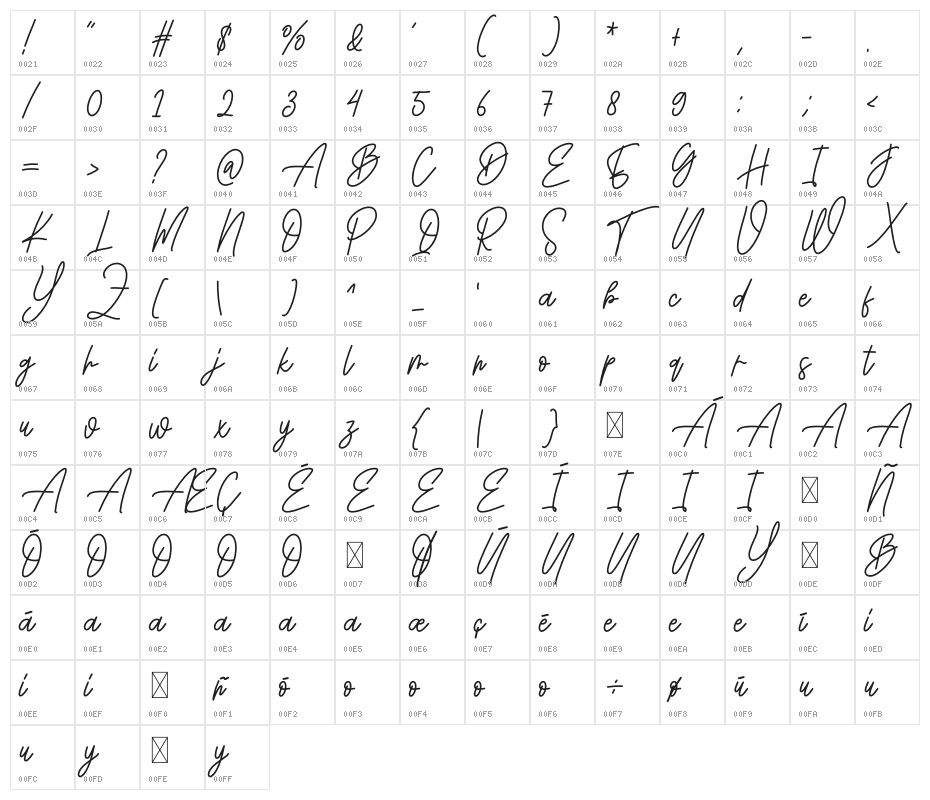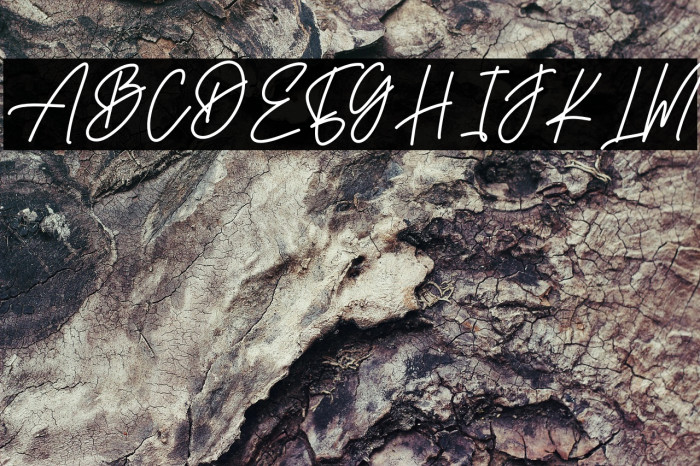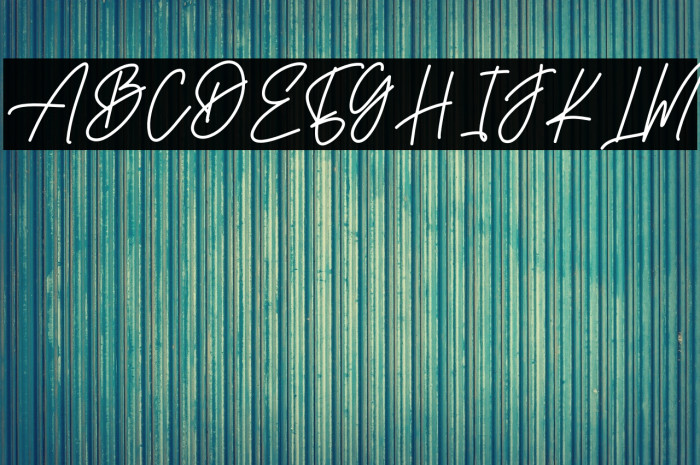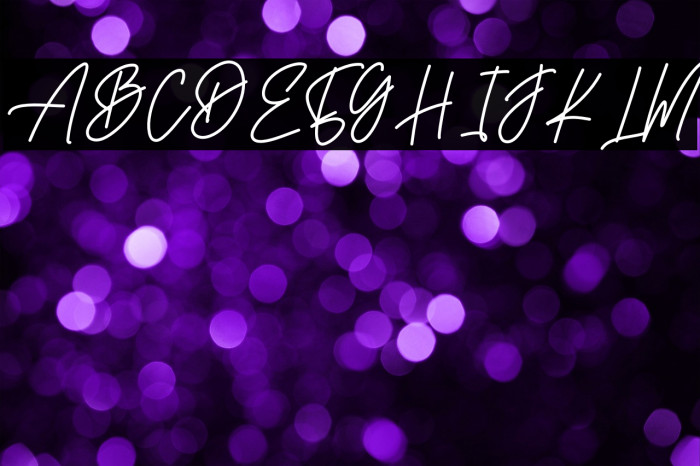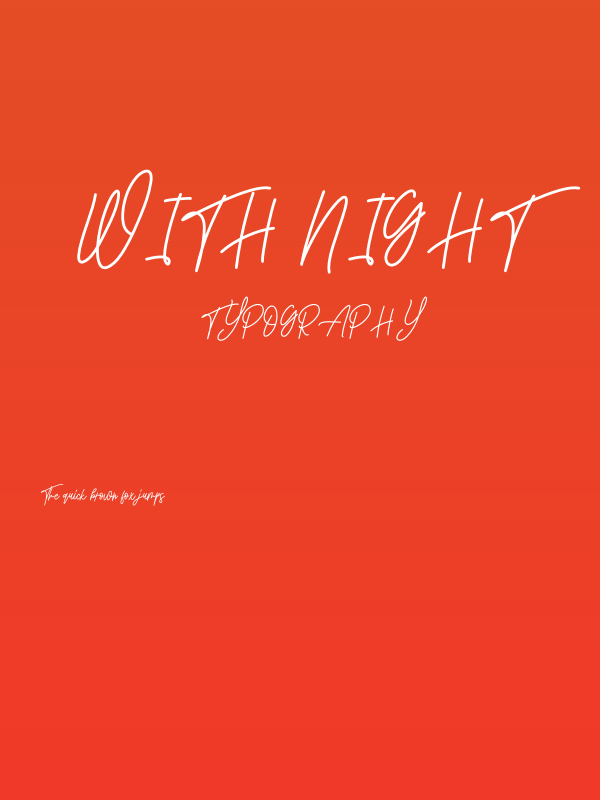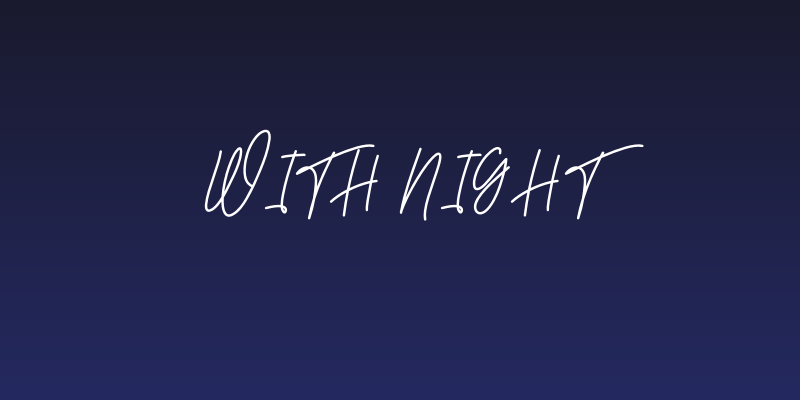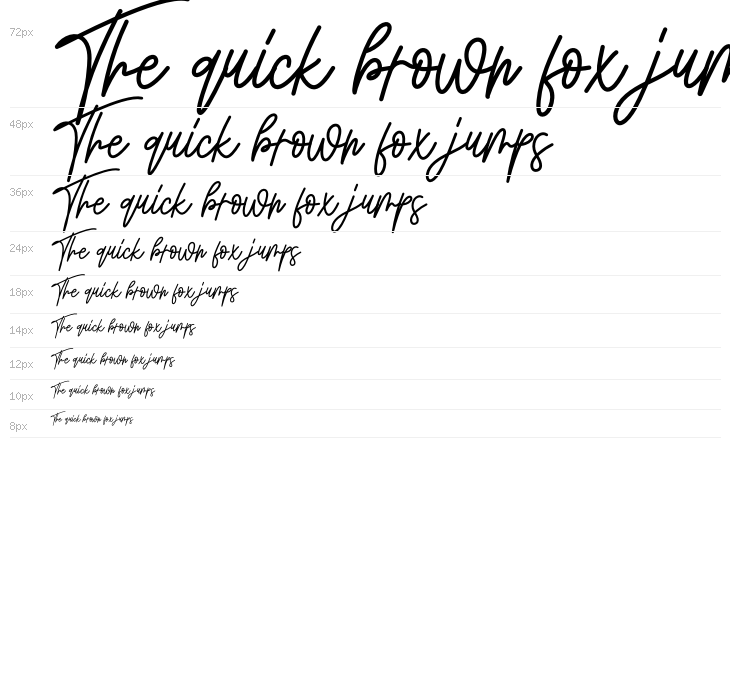
With Night Font
This font features a dynamic and fluid script style, characterized by its elegant, flowing lines and cursive letterforms. The uppercase letters are slightly more formal, with a consistent slant and smooth curves, while the lowercase letters exhibit a more casual and connected appearance. The numerals and special characters maintain the same fluidity, ensuring a cohesive look throughout. The font's overall design is both sophisticated and approachable, making it suitable for a variety of applications.
| Overall Style | Elegant, Fluid |
| Use Case | Logos, Invitations, Decorative Text |
| Proposed Projects | Ideal for wedding invitations, greeting cards, branding projects, and elegant packaging designs. |